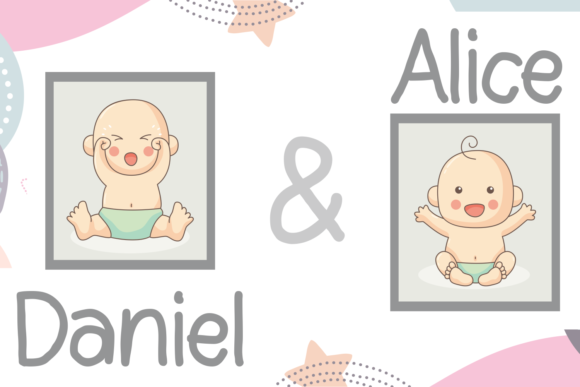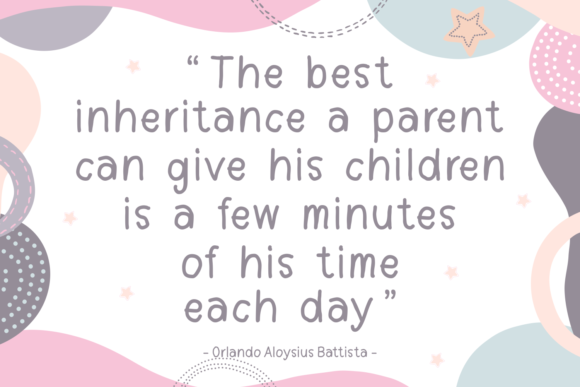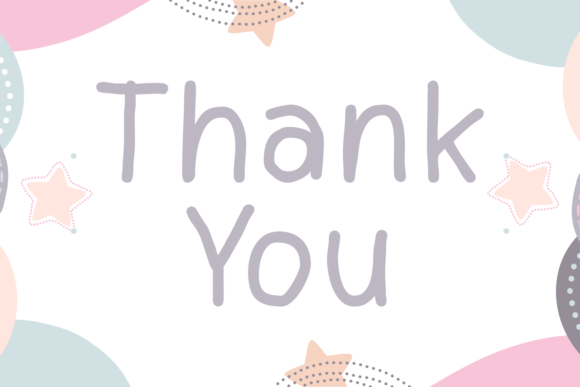
About Childraw Font
Childraw is a fun and simple handwritten font. Round lettered and sweet, this font will make each of your school or children designs come alive!